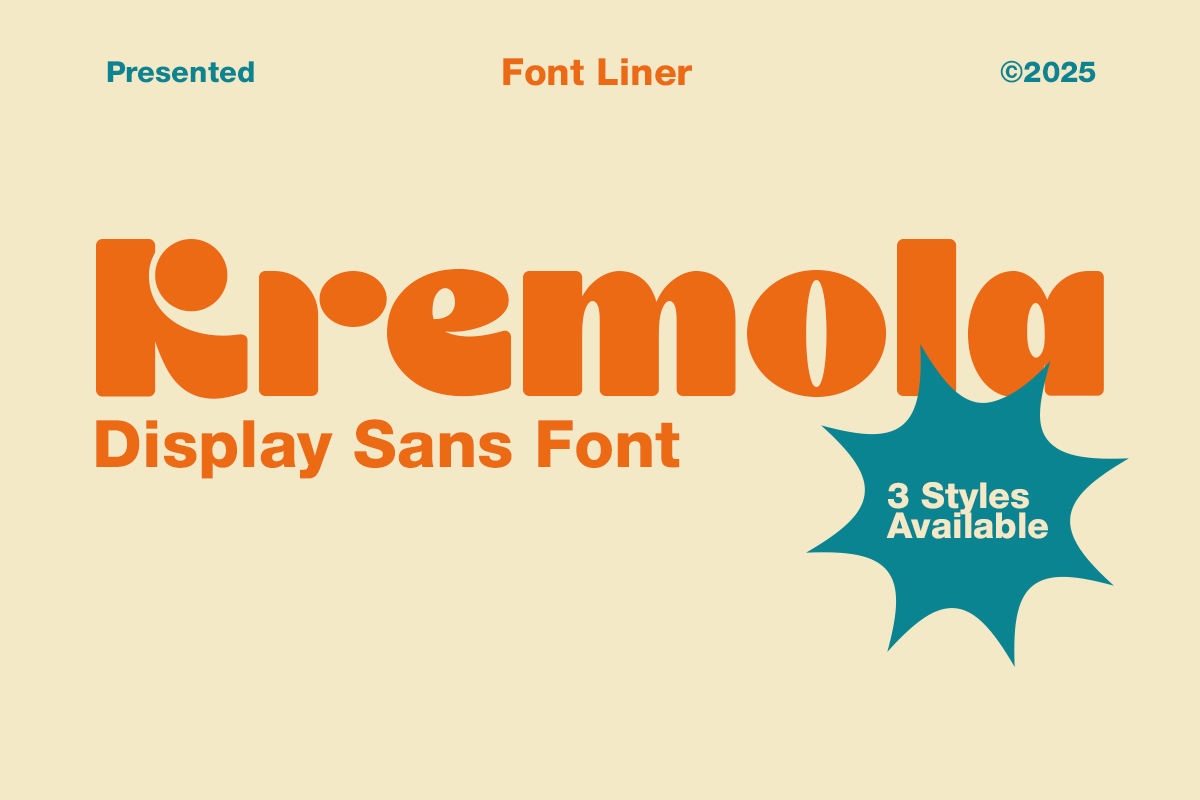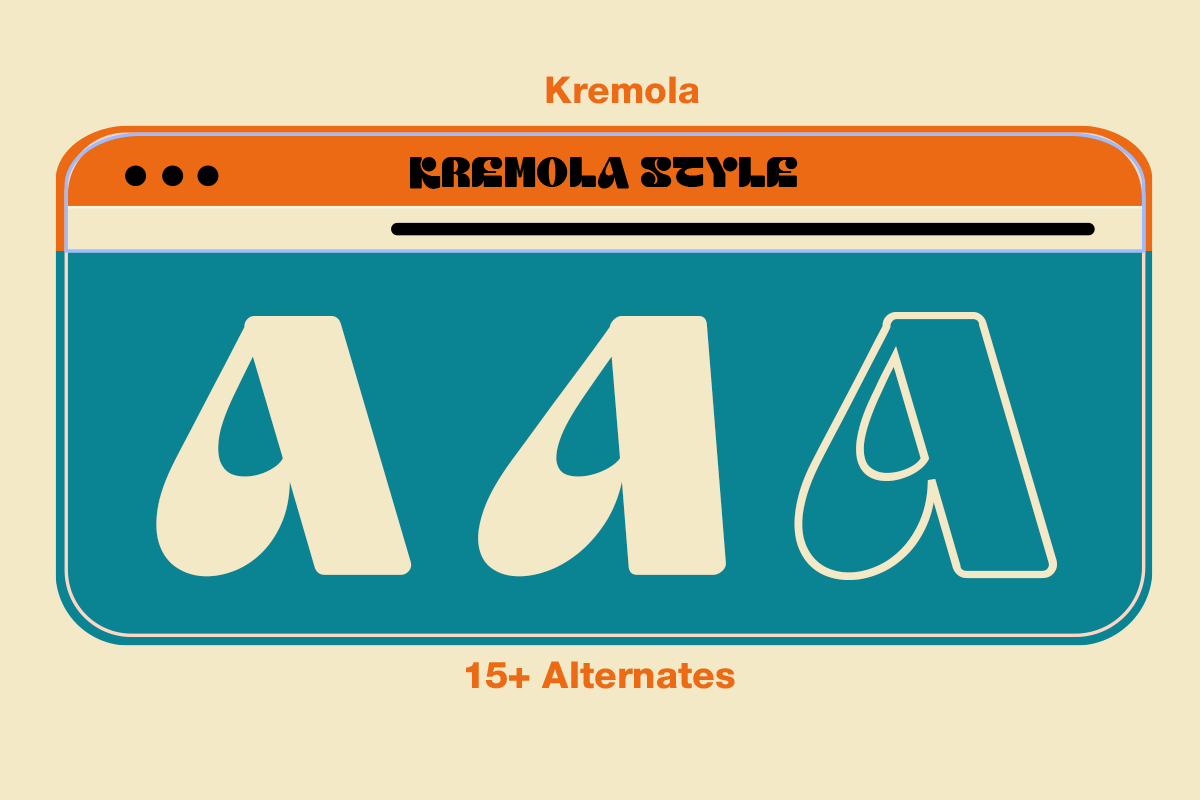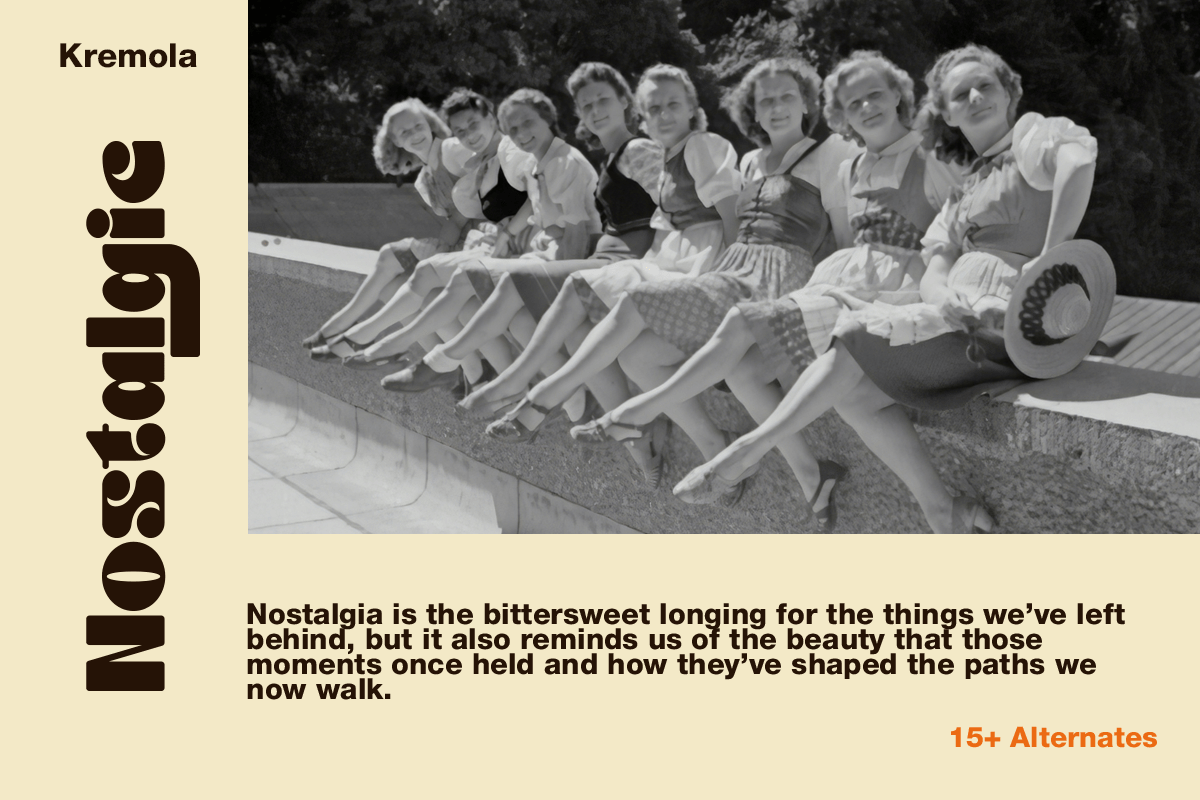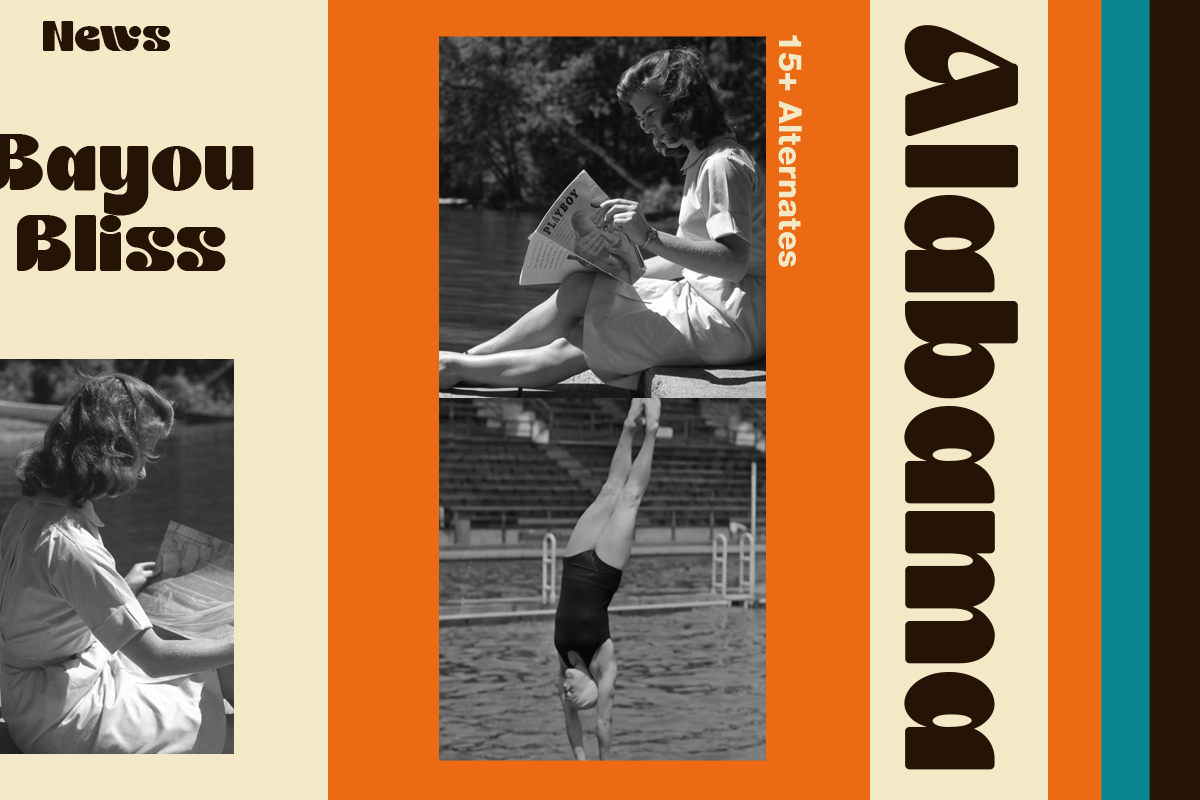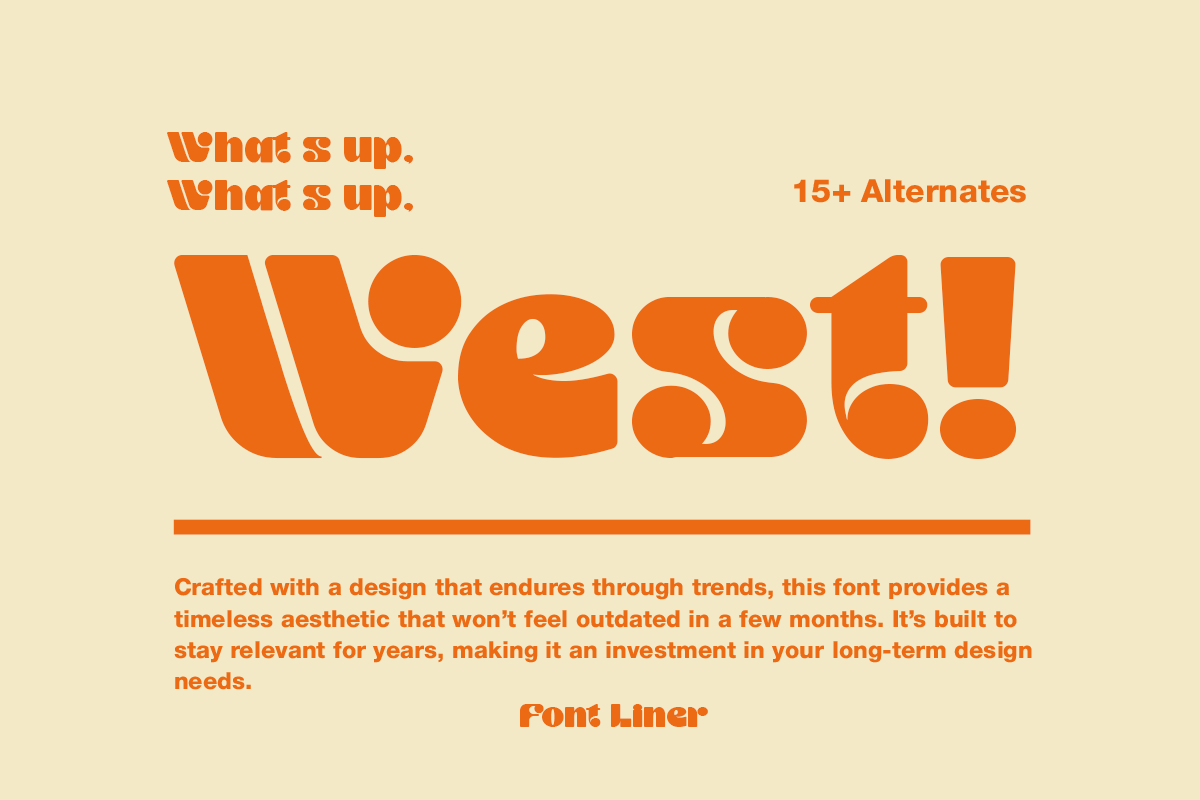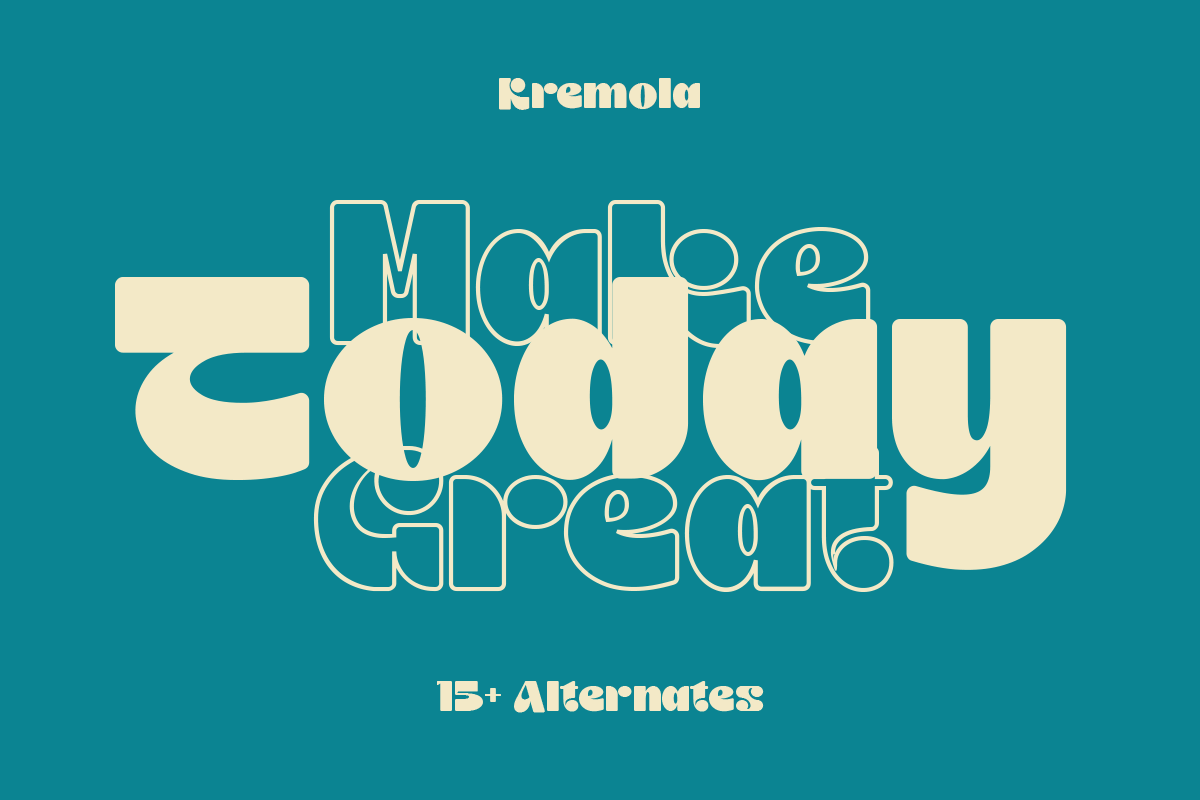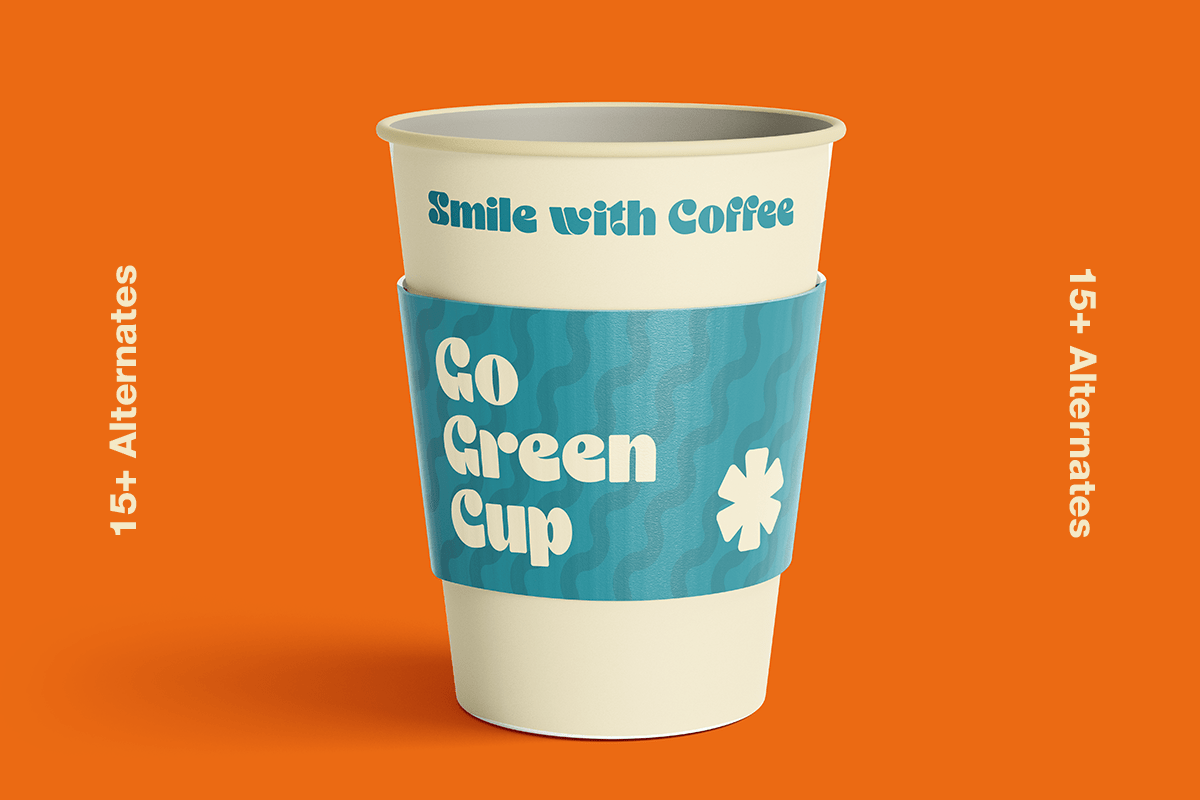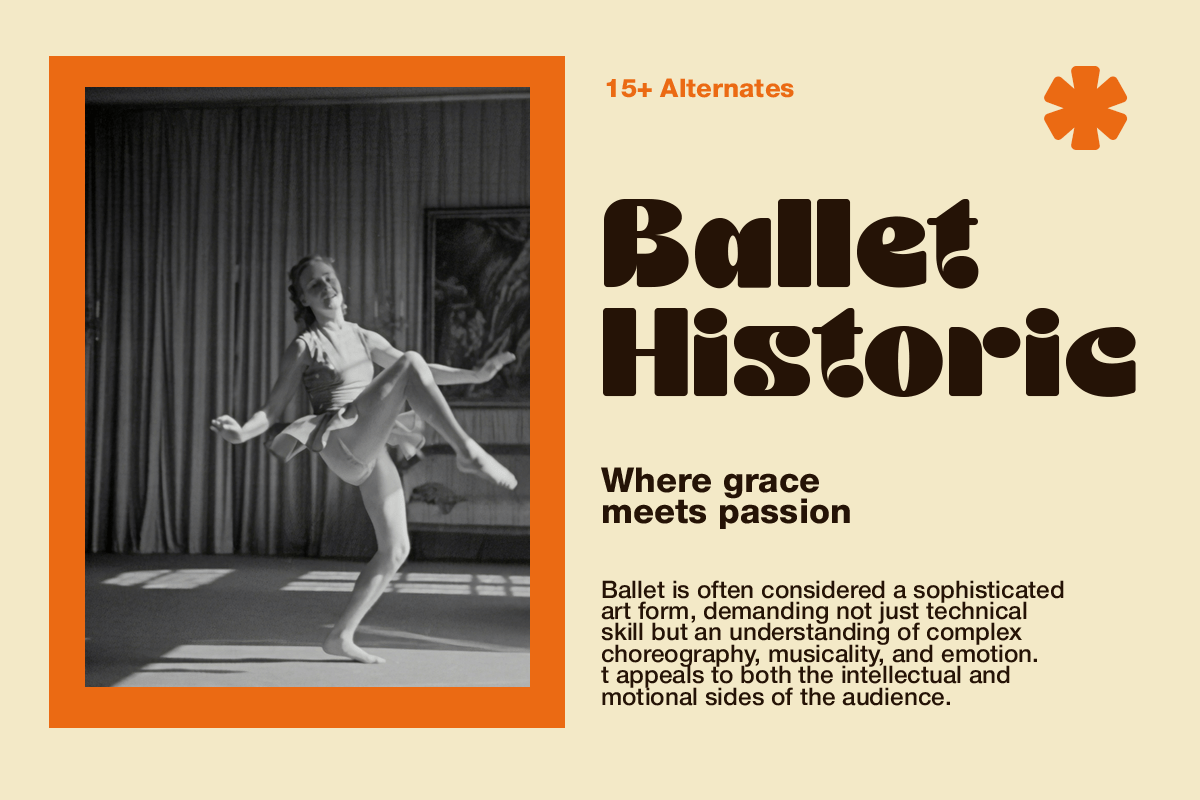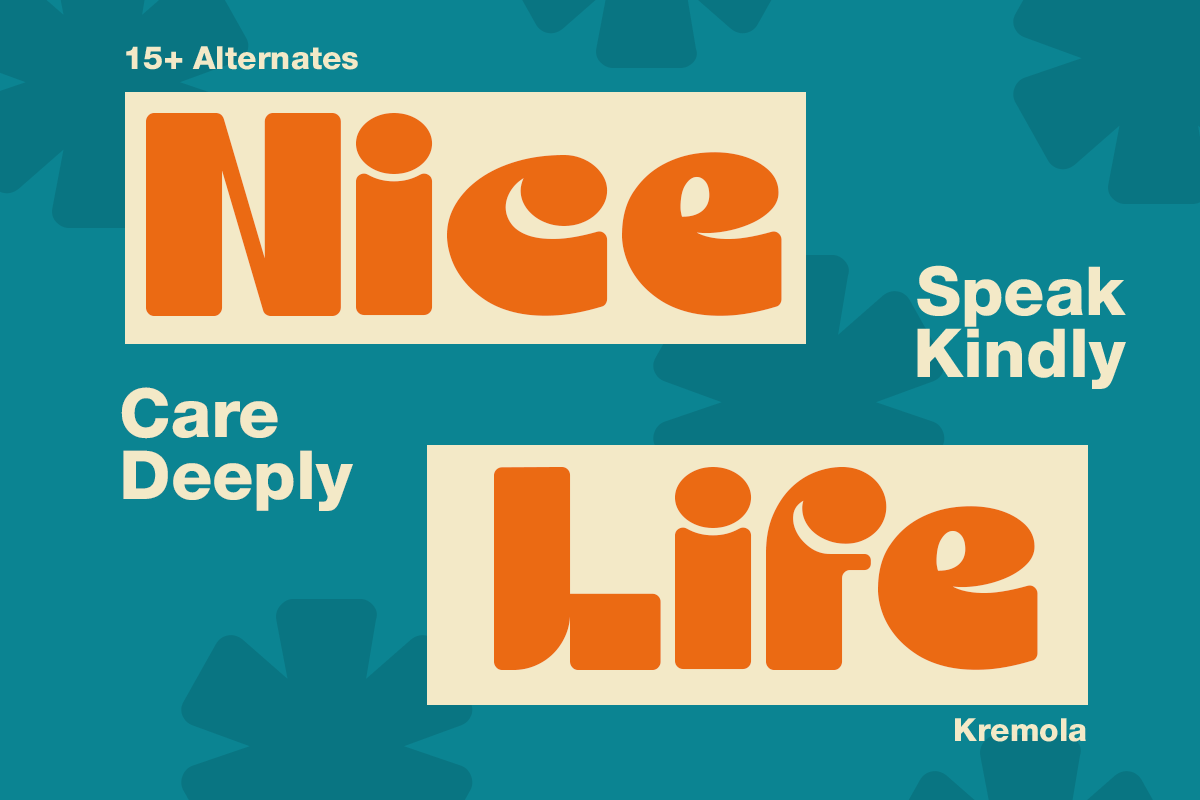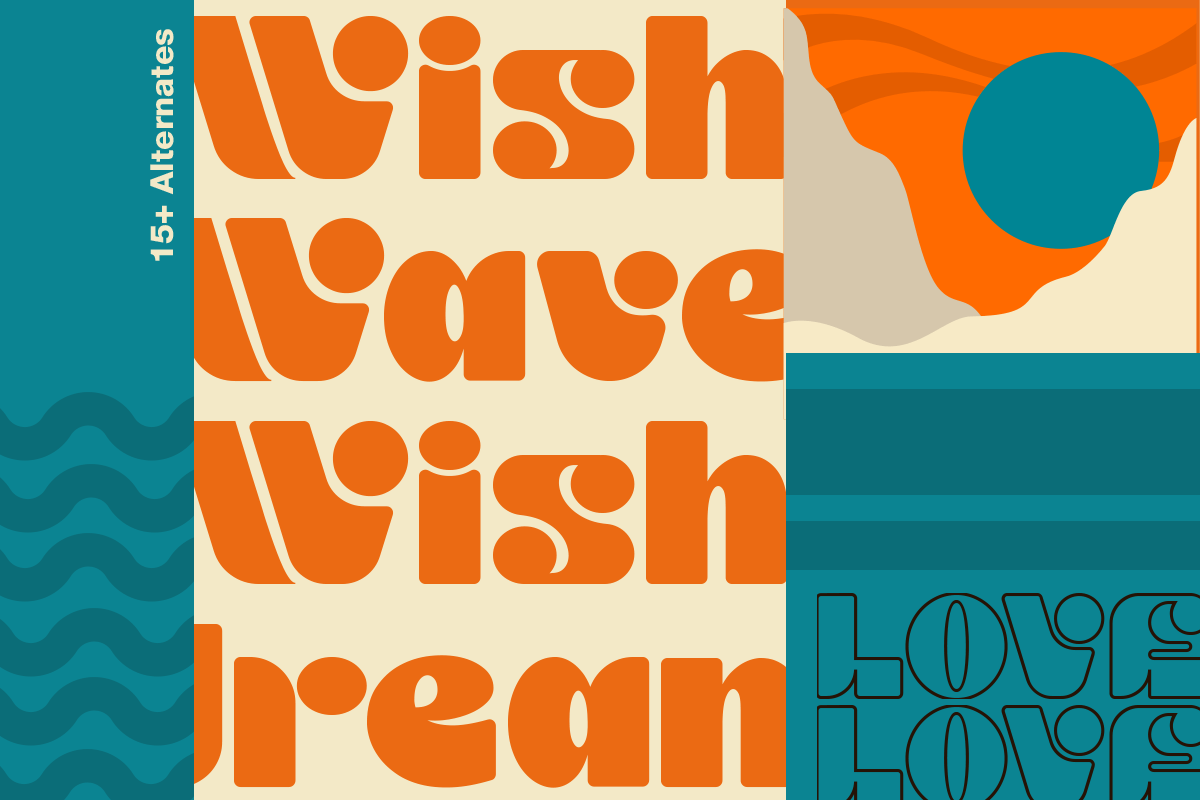
Kremola – Display Sans Font
Kremola is a bold display sans font that combines playful geometry with contemporary confidence. Designed with chunky letterforms, smooth curves, and eye-catching alternates, this typeface creates a fresh and energetic personality perfect for modern branding. Its clean construction and expressive style make Kremola ideal for bold headlines, creative layouts, and designs that demand instant visual attention.
Perfect for branding, packaging, posters, editorial layouts, social media, advertising, fashion campaigns, product labels, cafés, restaurants, merchandise, websites, and lifestyle brands, Kremola delivers exceptional versatility across both print and digital media. Whether you’re creating modern logos, promotional graphics, magazine covers, or colorful packaging, this font brings a fun and memorable character to every project.
Kremola includes three font styles, 15+ stylistic alternates, uppercase and lowercase characters, multilingual support, numerals, punctuation, and symbols, providing designers with complete creative flexibility. From playful branding and editorial headlines to premium packaging and contemporary visual identities, Kremola is the perfect display sans font for bold, modern, and expressive typography.